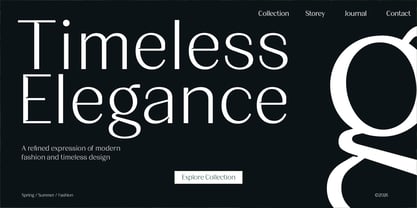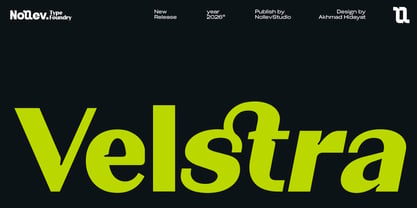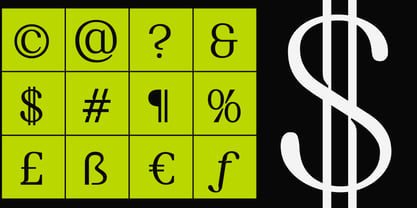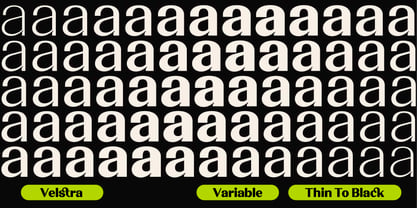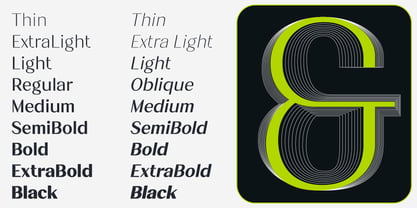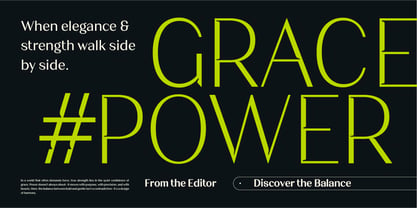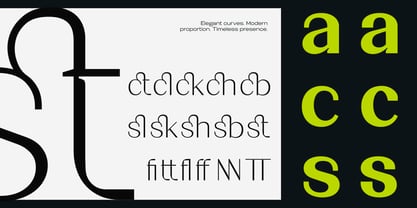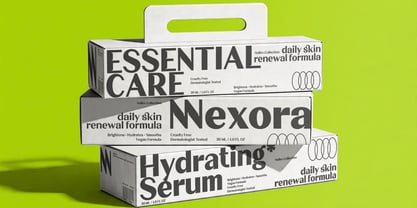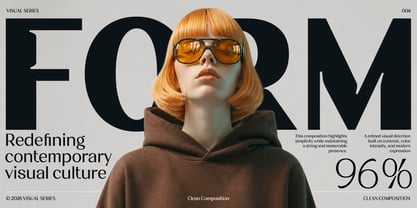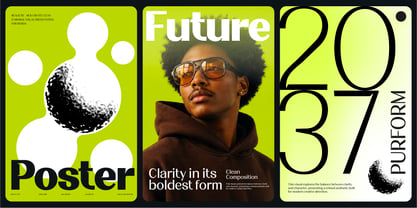
Velstra
by Nollev
The Velstra Font Family was designed by Akhmad Hidayat and published by Nollev. Velstra contains 19 styles and family package options. More about this family
Velstra is a high contrast sans serif typeface family designed to bring elegance, clarity, and modern impact to professional design projects. Featuring 18 styles including upright and italic, ranging from Thin to Bold, plus a fully flexible Variable Font, Velstra offers complete creative freedom for every visual direction.
Its sharp contrast, refined proportions, and contemporary character make it ideal for branding, logos, editorials, fashion campaigns, packaging, headlines, and premium identities. From delicate minimal layouts to bold statement typography, Velstra adapts beautifully while maintaining a strong and sophisticated presence.
Built for designers who need versatility without sacrificing style, Velstra is a powerful type family made to stand out in modern visual communication.